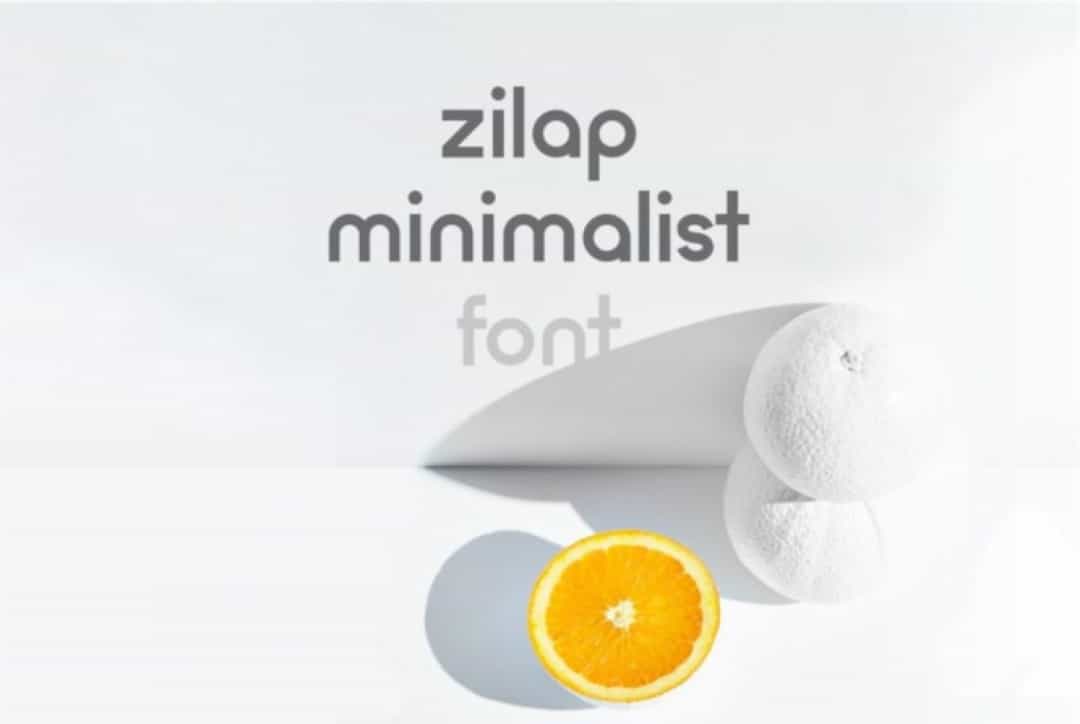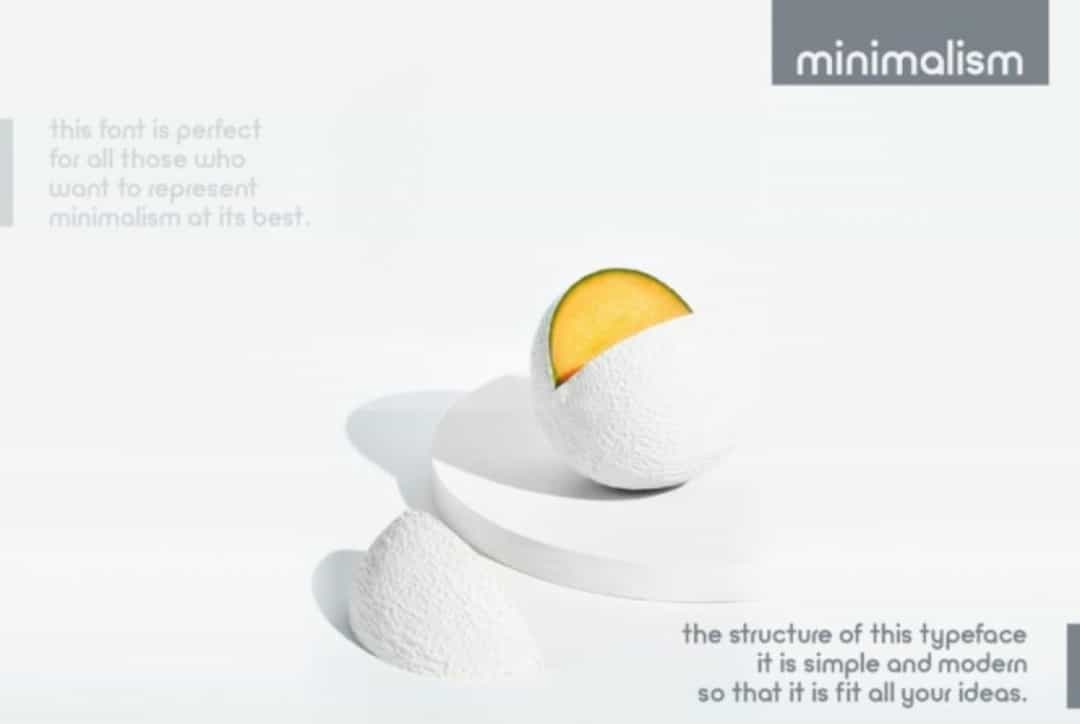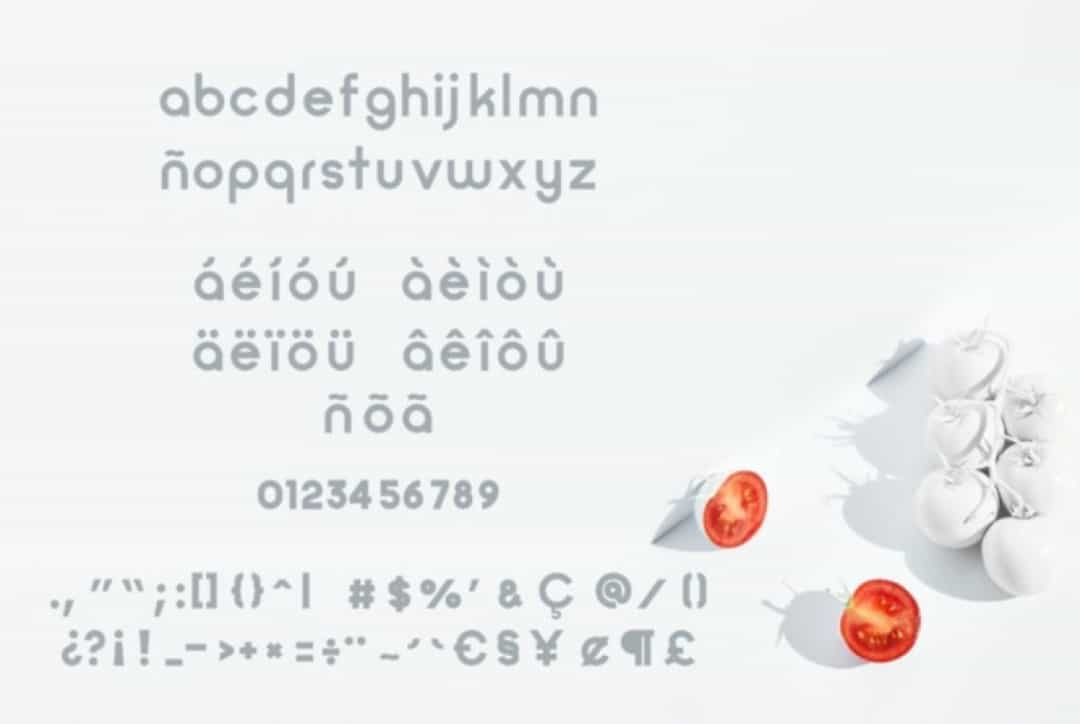
Zilap Minimalist from Zilap Estudio is an eye-catching Modern Sans Serif font with only lowercase letters featuring its modern, geometric style – making it the ideal font choice for minimalist aesthetics and designs that emphasize minimalism.